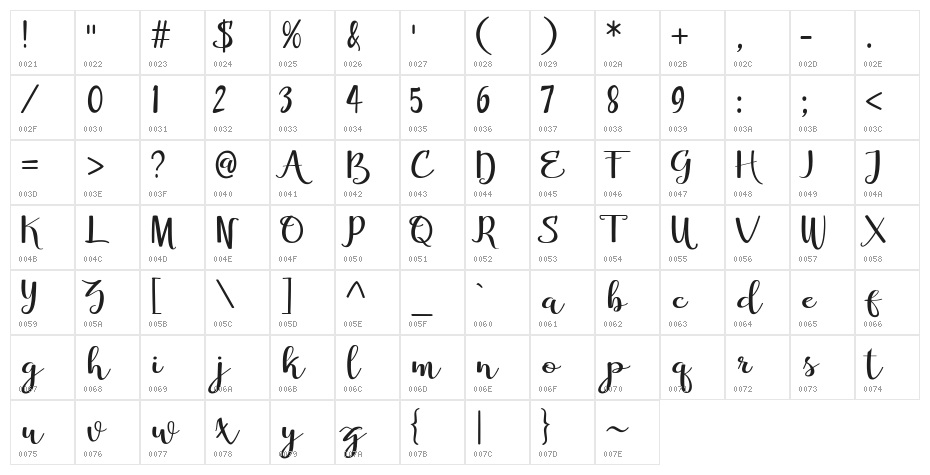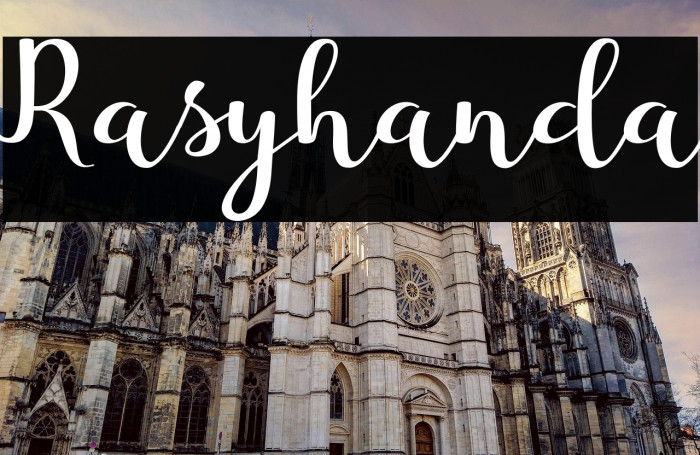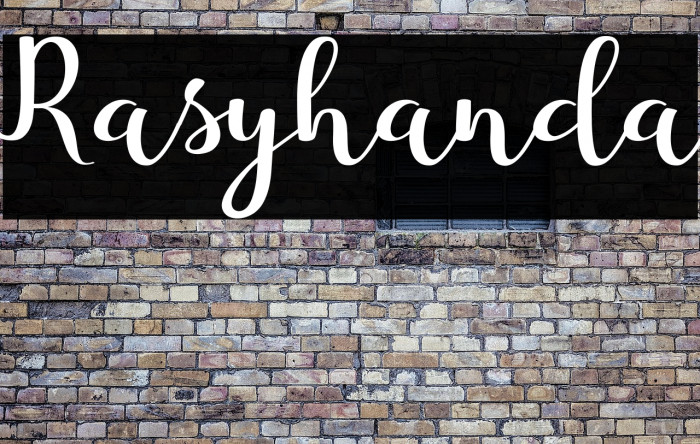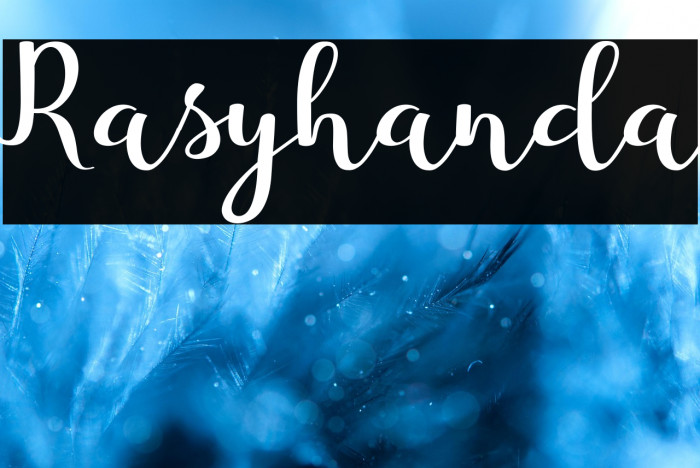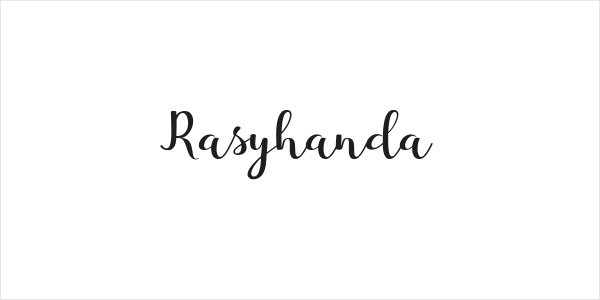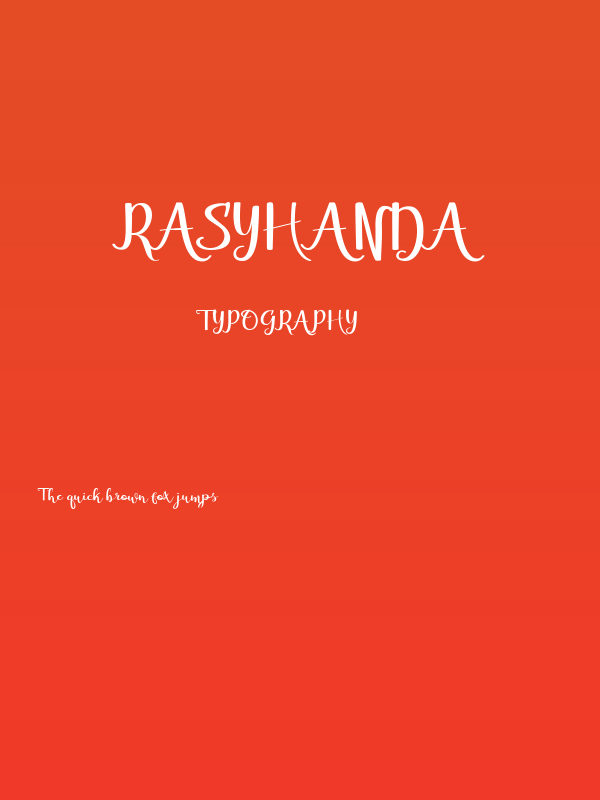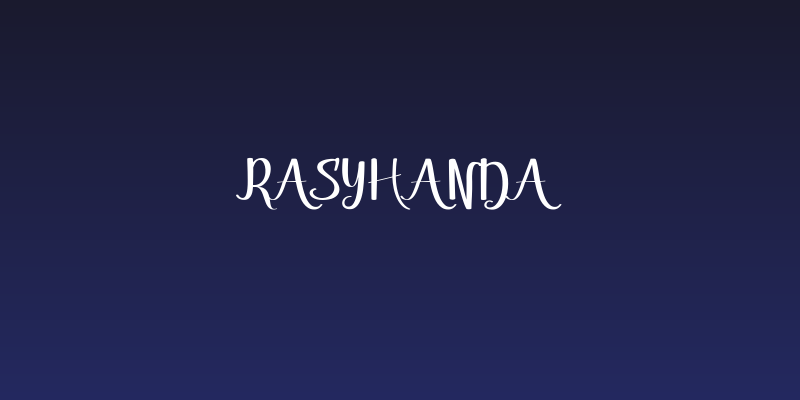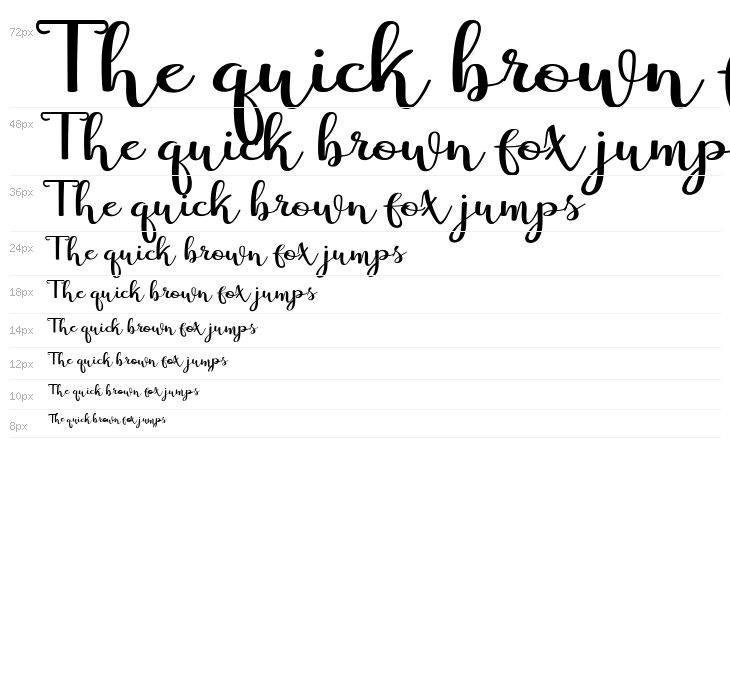
Rasyhanda Font
Rasyhanda Description
This font features a playful and elegant script style, characterized by its flowing, cursive letters that exude a sense of charm and sophistication. The uppercase letters are tall and graceful, with sweeping curves and delicate flourishes that add a touch of whimsy. The lowercase letters maintain a consistent style, with rounded forms and smooth connections that enhance readability. Numbers are bold and slightly slanted, complementing the overall aesthetic. Special characters are thoughtfully designed, maintaining the font's cohesive look. This font is perfect for projects that require a personal and artistic touch.